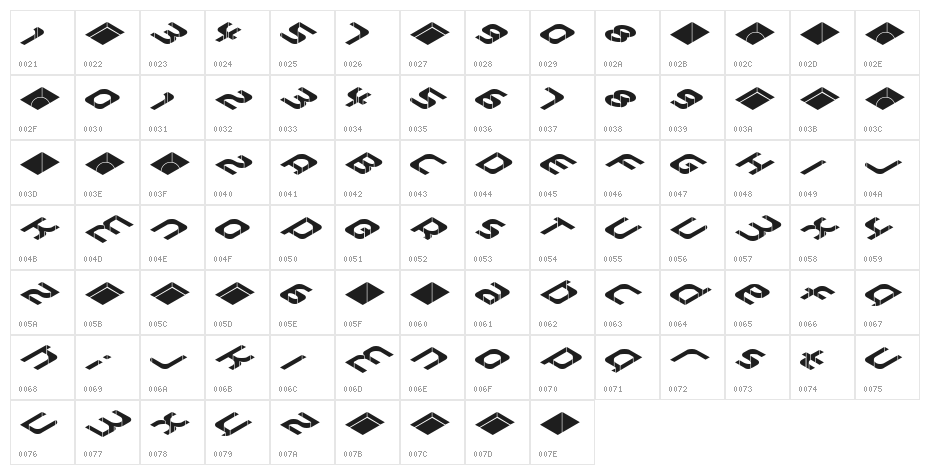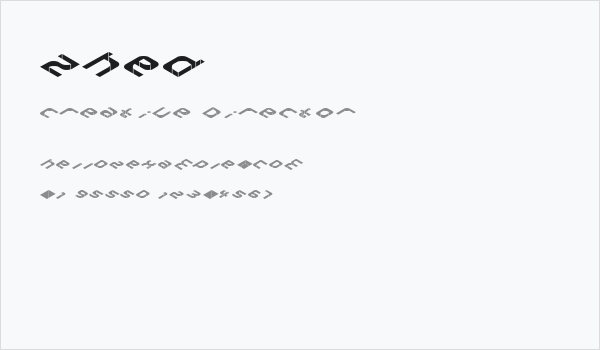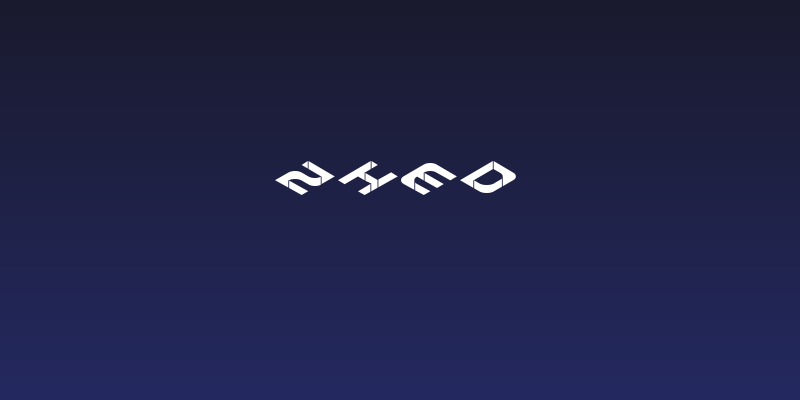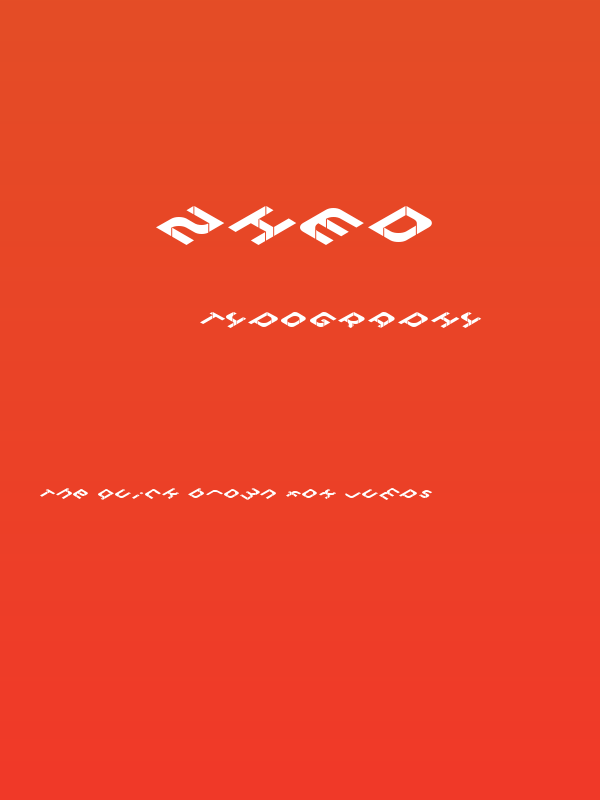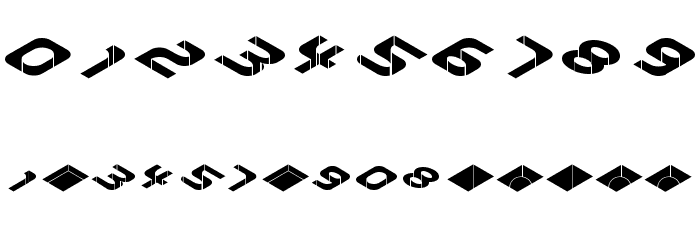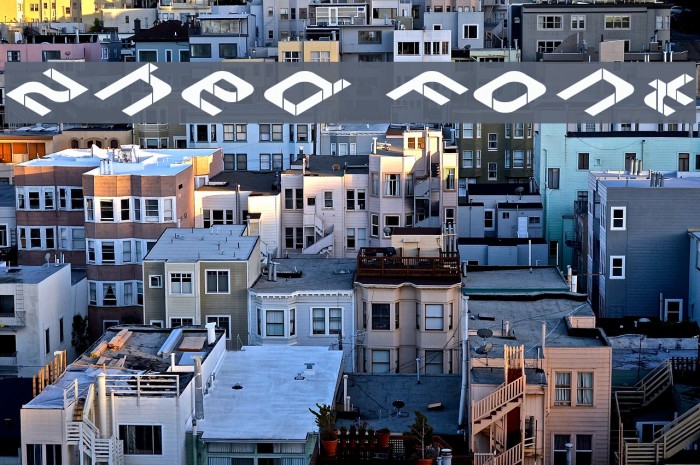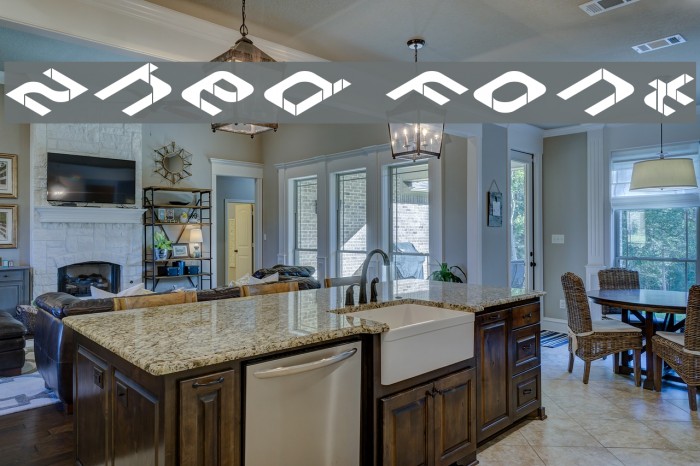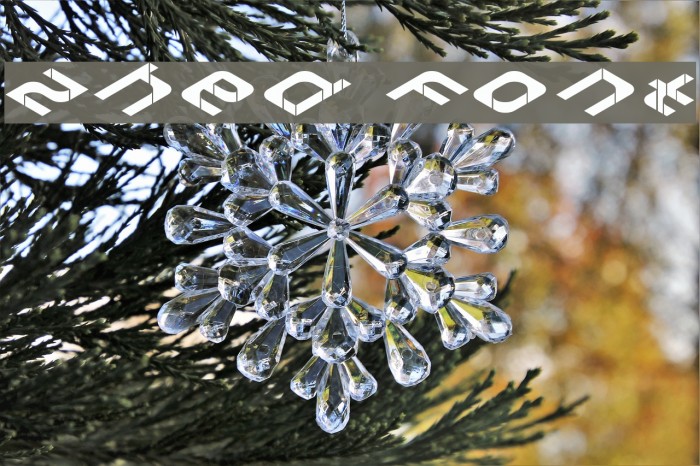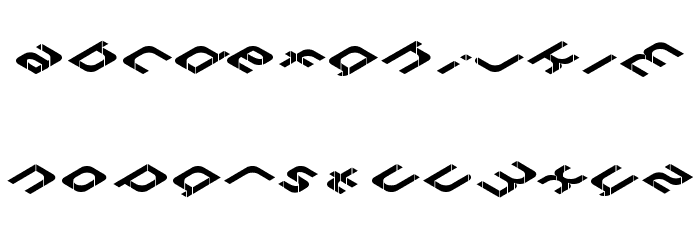
Zhed Font
Zhed Description
This font features a highly geometric and abstract design, characterized by its angular and fragmented letterforms. Each character appears to be constructed from a series of sharp, intersecting lines and shapes, creating a sense of movement and dynamism. The font's unique style makes it stand out, with a futuristic and avant-garde aesthetic. The characters are bold and striking, with a consistent thickness throughout, giving the font a uniform appearance. The spacing between characters is tight, enhancing the compact and cohesive look of the text. This font is ideal for projects that require a modern and edgy feel, such as technology branding, digital art, or contemporary posters.
| Use Case | Logos, Headlines |
| Proposed Projects | Ideal for technology branding, digital art, contemporary posters, and avant-garde designs. |